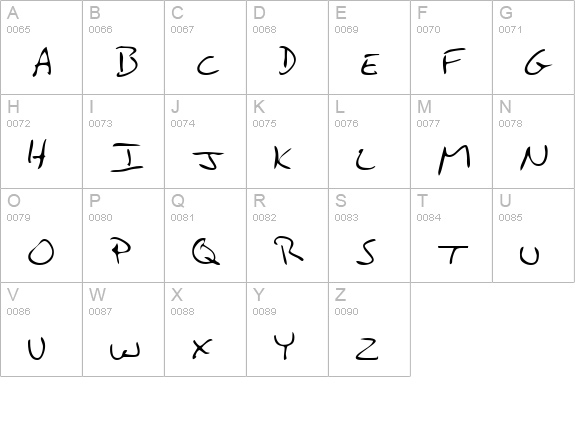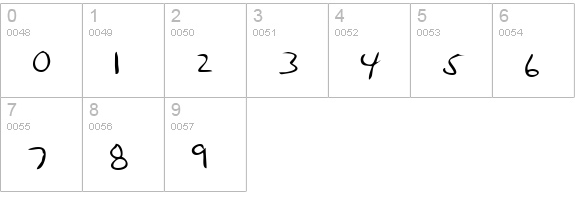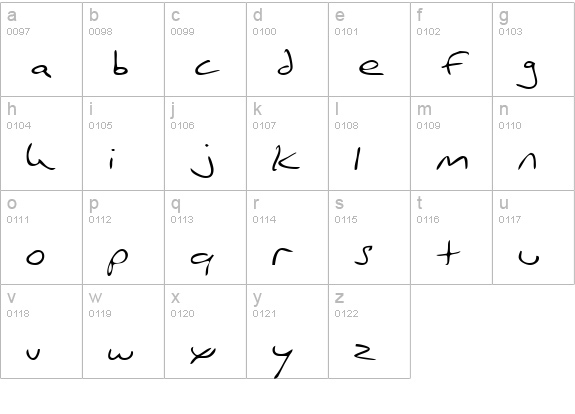
LloydsHand Regular Font Details
LloydsHand Regular is the standard, neutral variant in the LloydsHand typeface family \xE2\x80\x94 well suited to general body text, paragraphs, and standard typographic work.
LloydsHand Regular font is a charming and versatile typeface that exudes a sense of warmth and friendliness. With its handwritten style and elegant curves, this font is perfect for adding a personal touch to your designs. Whether you're working on a greeting card, invitation, or logo, LloydsHand Regular will bring a unique and inviting feel to your project. The best part? LloydsHand Regular font is available for free download at FontsMarket.com. This means you can easily access this beautiful font and use it in your creative projects without any cost. Whether you're a professional designer or a hobbyist, LloydsHand Regular font is a valuable addition to your font collection. Download it today and add a touch of personality to your designs!